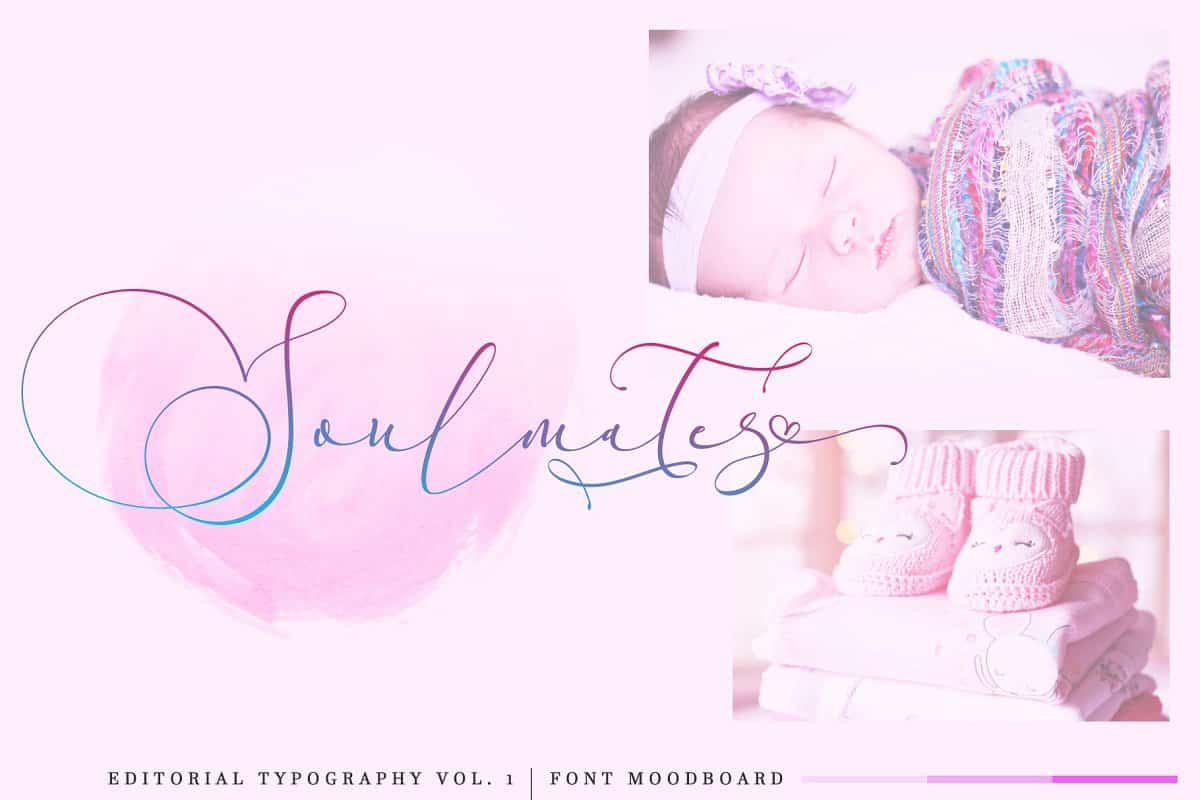
Everything Calligraphy Font
Everything Calligraphy Font falls under the category of the handwritten fonts. This is a modern typeface that is quite similar to the elegant font.
And he releases it through variety foundry for the number one time. This has taken the fundamentals of palm brush font. This font is used inside the photodetection approach.
Style Of Everything Calligraphy Font Free